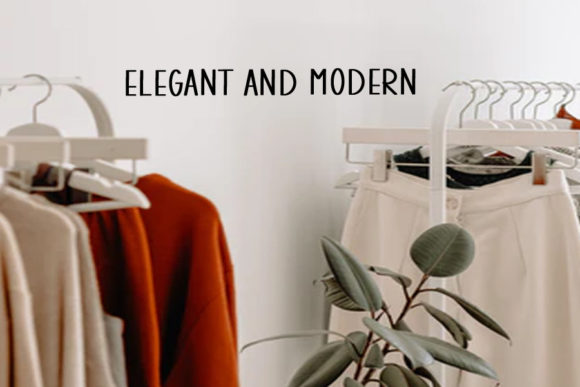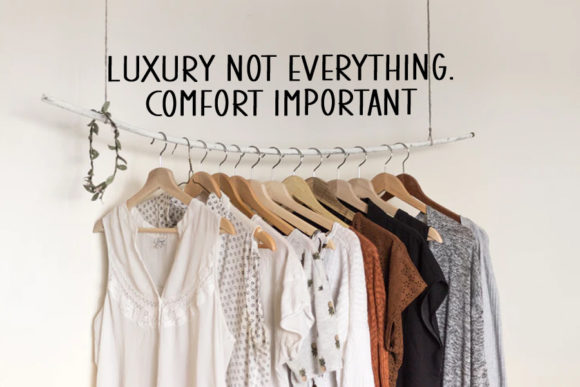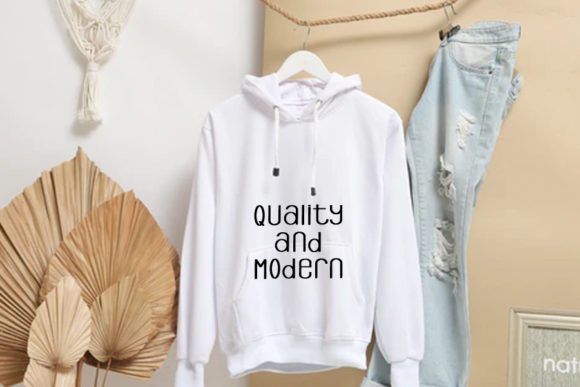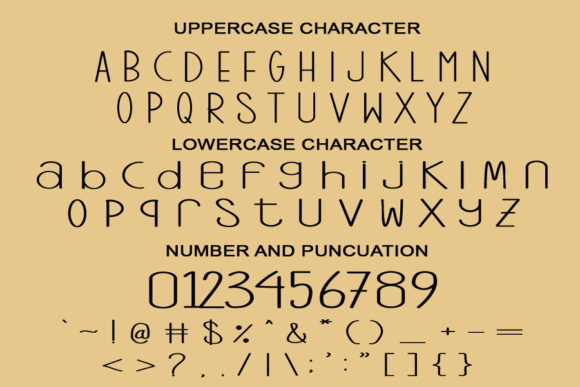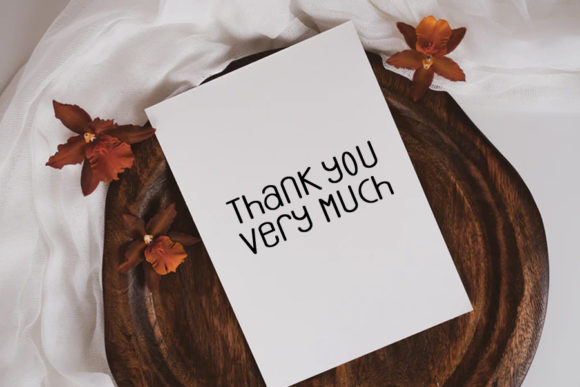
Dream Fashion Font: Elevate Your Designs with Elegance and Simplicity
Are you a designer or crafter looking for a font that embodies elegance, simplicity, and versatility? Look no further than the Dream Fashion Font. This clean, neat, and simple lettered handwritten font is perfect for a wide range of projects, from fashion designs to craft projects, and can instantly elevate your creative ideas to the next level.
What is Dream Fashion Font?
Dream Fashion Font is a beautifully crafted handwritten font that exudes a sense of sophistication and style. Its clean and simple design makes it highly legible, while its elegant lettering adds a touch of refinement to any project. Whether you’re working on a fashion brand, a craft project, or any other creative endeavor, this font is sure to make your designs stand out.
Key Features of Dream Fashion Font
- Clean and Simple Design: The Dream Fashion Font features a clean and simple design that makes it highly versatile and easy to read.
- Elegant Handwritten Style: The font’s elegant handwritten style adds a touch of sophistication and refinement to any project.
- Highly Legible: The font’s clear and simple design makes it highly legible, even at small sizes.
- Wide Range of Applications: The Dream Fashion Font can be used for a wide range of projects, from fashion designs to craft projects, and more.
Why Choose Dream Fashion Font?
So, why choose the Dream Fashion Font for your next project? Here are just a few reasons:
- Instant Elegance: The Dream Fashion Font adds an instant touch of elegance and sophistication to any project.
- Versatility: The font’s clean and simple design makes it highly versatile, and it can be used for a wide range of projects.
- Easy to Read: The font’s clear and simple design makes it highly legible, even at small sizes.
- Unique and Creative: The Dream Fashion Font is a unique and creative font that will help your designs stand out from the crowd.
Tips and Tricks for Getting the Most Out of Dream Fashion Font
- Pair it with Other Fonts: The Dream Fashion Font pairs well with other fonts, so don’t be afraid to experiment with different combinations.
- Use it for Headings and Titles: The font’s elegant handwritten style makes it perfect for headings and titles.
- Experiment with Different Colors: The Dream Fashion Font looks great in a variety of colors, so don’t be afraid to experiment and find the perfect color for your design.
In conclusion, the Dream Fashion Font is a beautiful and versatile font that is perfect for designers and crafters looking to add a touch of elegance and sophistication to their projects. Its clean and simple design makes it highly legible, while its elegant handwritten style adds a touch of refinement. With its wide range of applications and ease of use, the Dream Fashion Font is a must-have for any designer or crafter looking to take their designs to the next level.